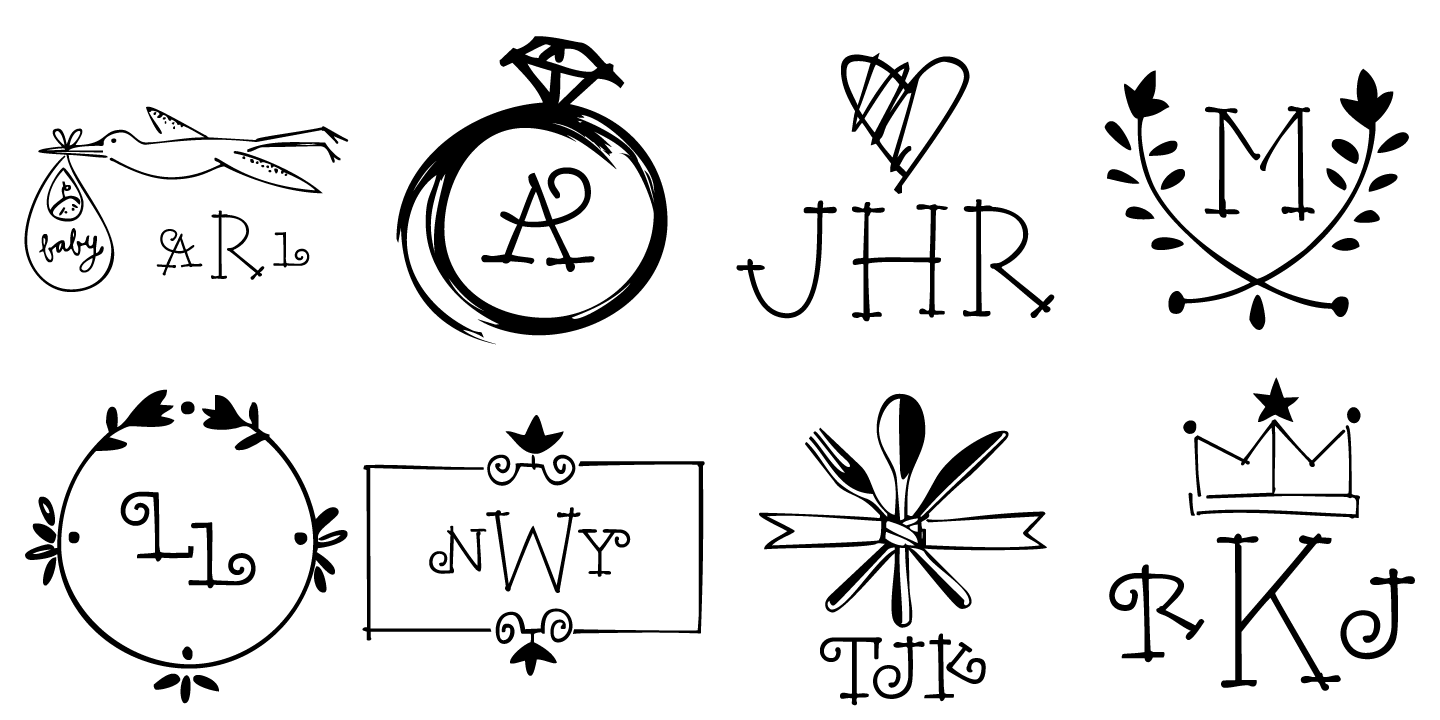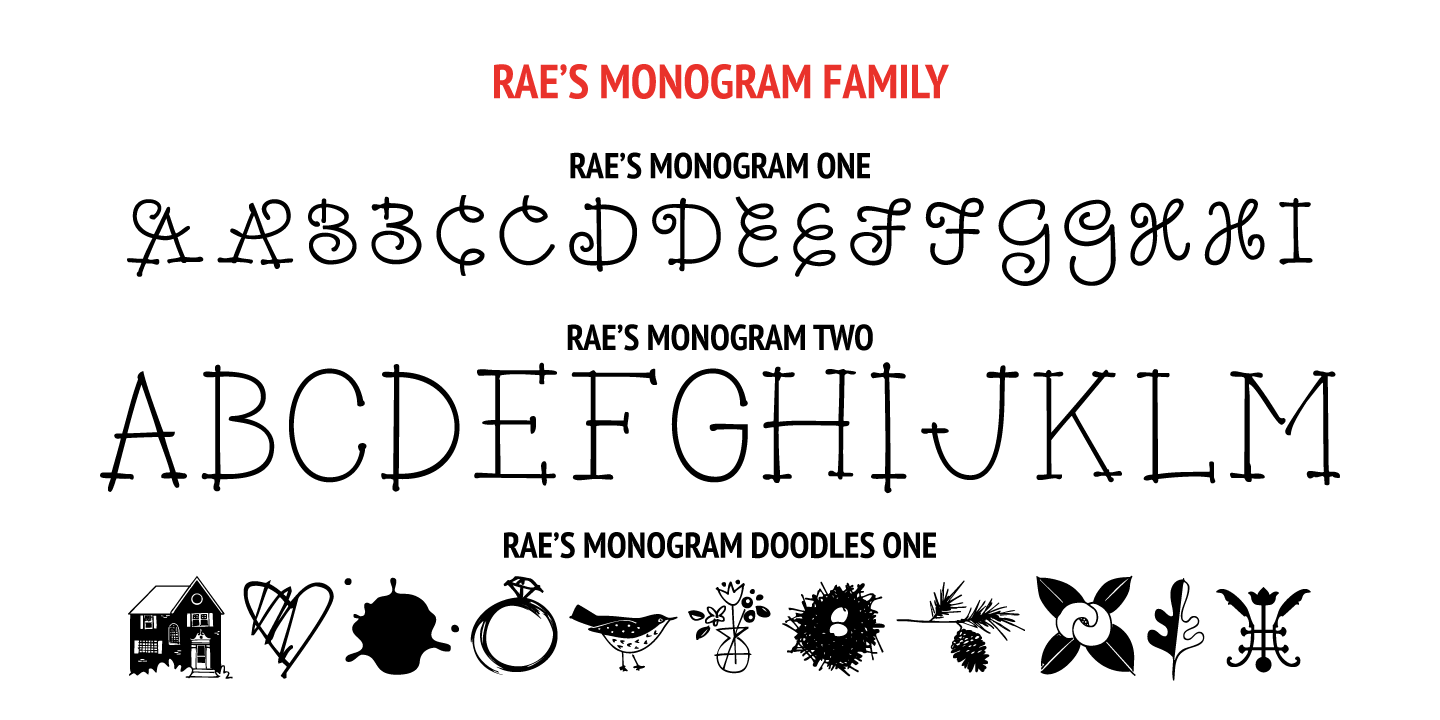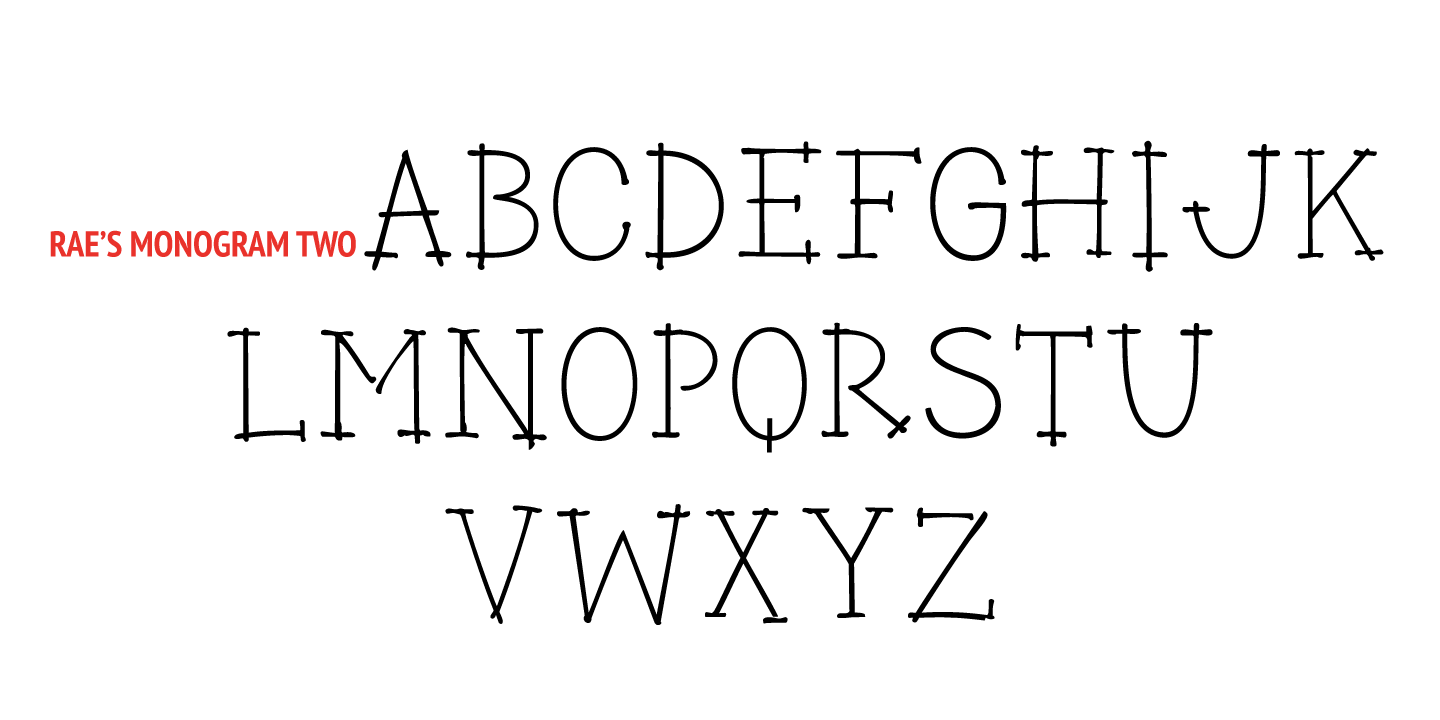
About Rae\’s Monogram Complete Family
Rae\’s Monogram Family is a contemporary take on monograms. Rae\’s Monogram One letters are best used as the right and left letters. You can add Rae\’s Monogram Two for the middle letter. Rae\’s Monogram Doodles One are 50 small illustrations to use with…